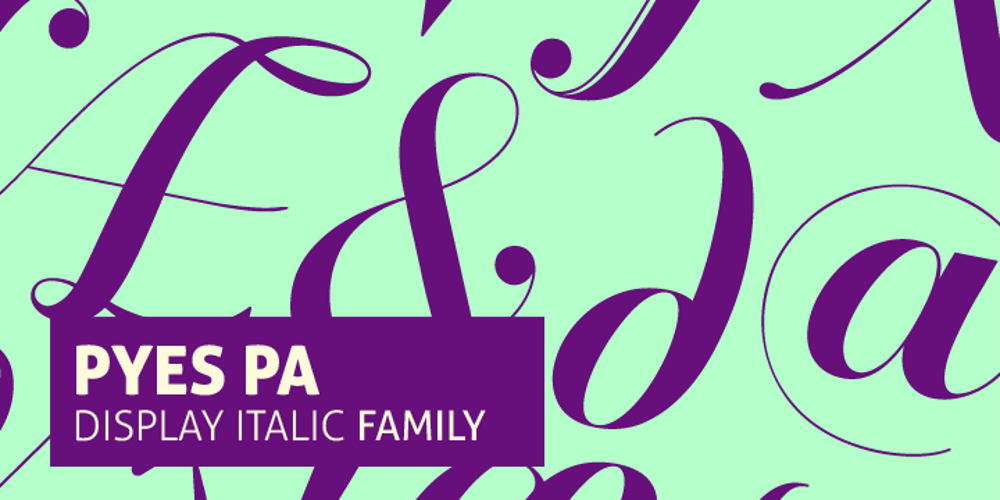
Pyes Pa Font Family was designed by Tim Donaldson and published by Tim Donaldson. Pyes Pa contains 3 styles and family package options. Hailing its roots from the much-prized Modern Didot and Bodoni families of the late 19th century, Pyes Pa re-introduces the intuition of calligraphic script while utilizing the contrast available to contemporary digital fonts to produce a highly refined alternative for those of us who are bloody serious about our Bodoni Poster Italics. Pyes Pa features automatic OpenType ligatures and contextual alternatives.